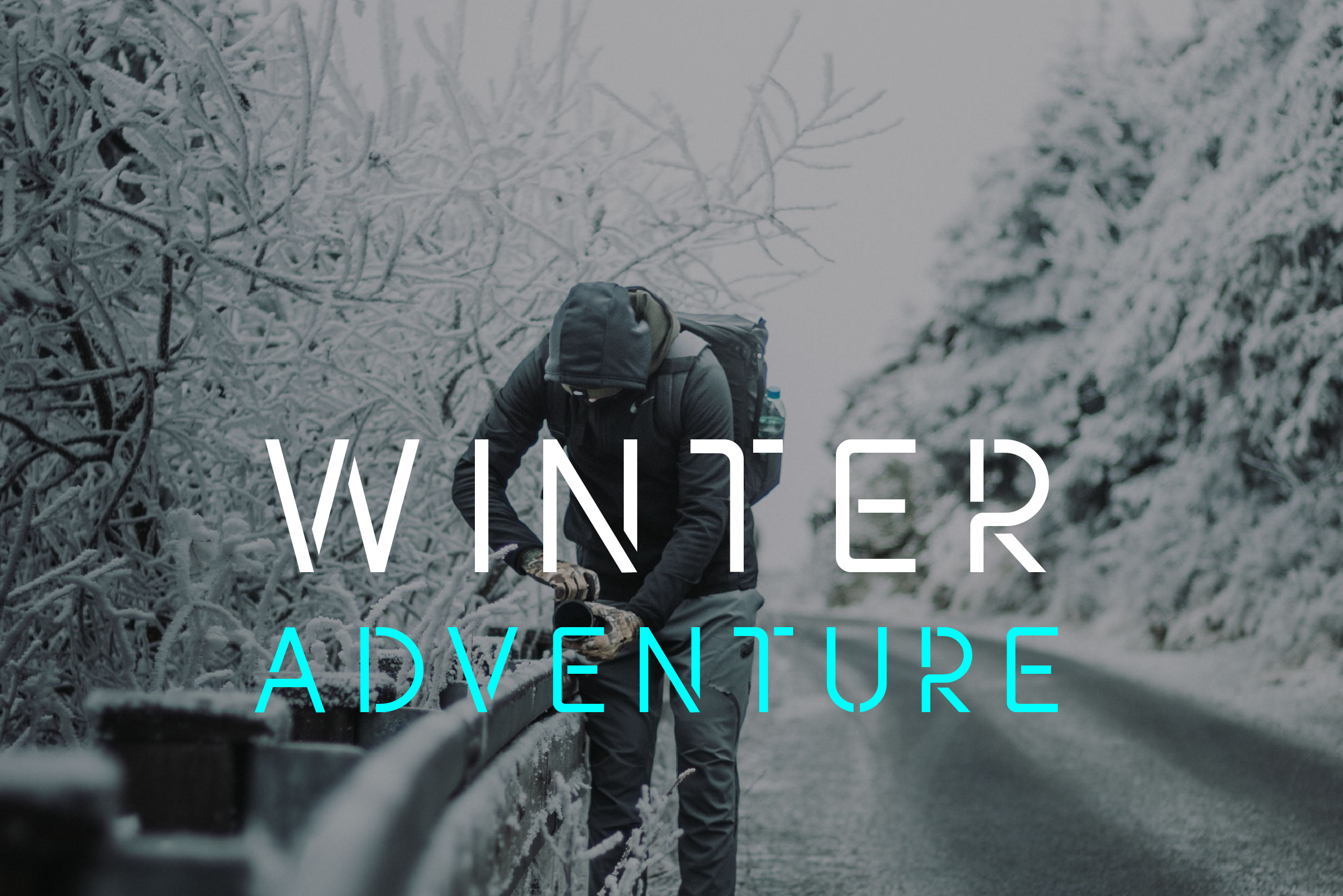
Hargetus Font
Hargetus Display Font
This is a new clean touched stencil display font that can be used for almost any type of design you wish to create. All you have to do is add it to each of your creative ideas and notice how it makes them stand out.